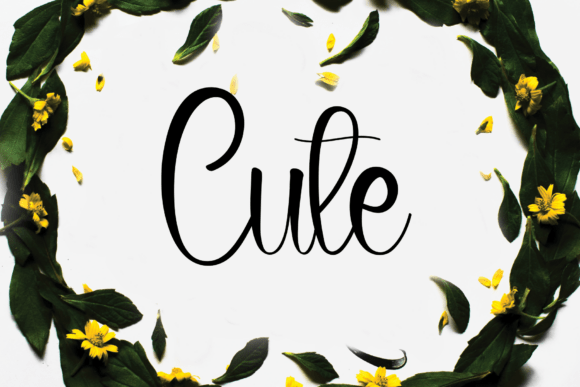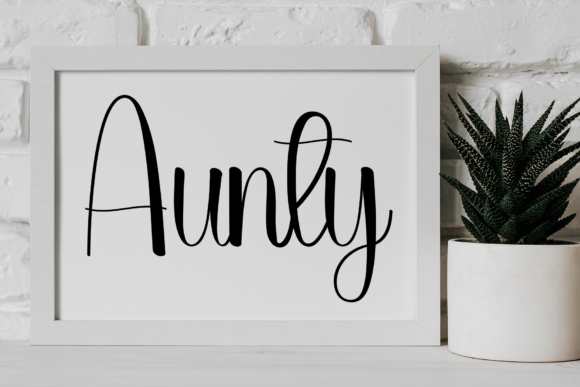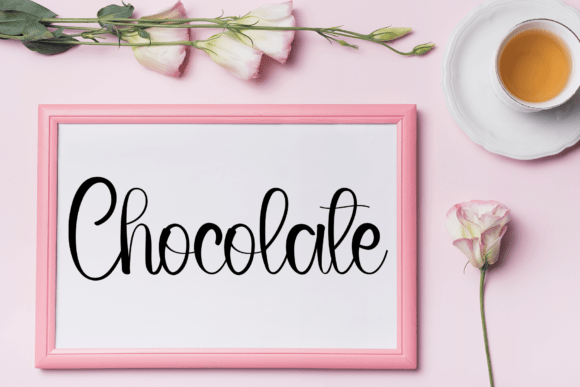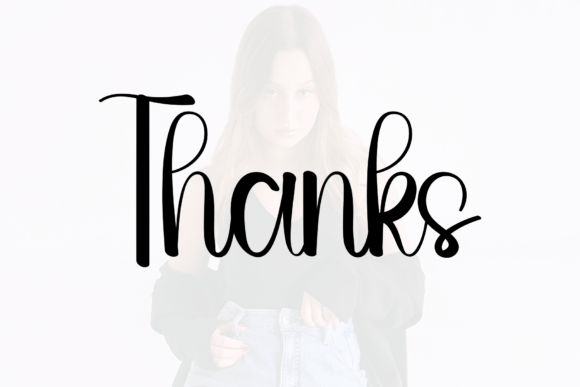
The Charm of Bellacute Font: A Designer’s New Best Friend
Bellacute is a charming handwritten font that exudes a sense of heartfelt perfection. Its smooth strokes and organic lines evoke a relaxed atmosphere, making it perfect for a variety of design projects. Whether used for branding, invitations, or social media graphics, Bellacute is sure to impress.
An Honest Review of Bellacute Font
- ✨ Smooth and fluid strokes: Bellacute’s handwritten style is incredibly smooth, making it perfect for designs that require a personal touch.
- ✅ Highly legible: Despite its organic feel, Bellacute is surprisingly easy to read, even at smaller font sizes.
- 💫 Versatile: This font can be used for a wide range of projects, from elegant wedding invitations to playful social media graphics.
While Bellacute is an amazing font, there are a few things to keep in mind:
- 🤔 Limited character set: Bellacute has a smaller character set compared to some other fonts, which can limit its use for certain projects.
- ⚠️ Not ideal for body text: While Bellacute is legible, it’s not the best choice for long blocks of body text. It’s better suited for headings and titles.
The Backstory of Bellacute Font
Bellacute was designed by a talented type designer who wanted to create a font that captured the warmth and personality of handwritten text. The designer’s inspiration came from classic handwritten fonts, but with a modern twist. The result is a font that’s both elegant and approachable.
| Font Name | Bellacute Font |
| Author | KC Production |
Q: Is Bellacute suitable for body text?
A: While Bellacute is legible, it’s not the best choice for long blocks of body text. It’s better suited for headings and titles.
Q: Does Bellacute have OpenType features?
A: Yes, Bellacute has a range of OpenType features, including stylistic alternates, glyphs, and ligatures.